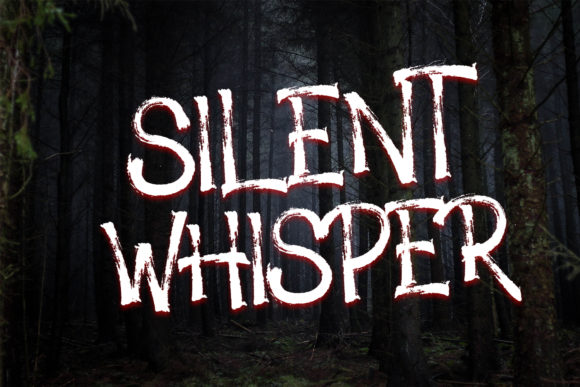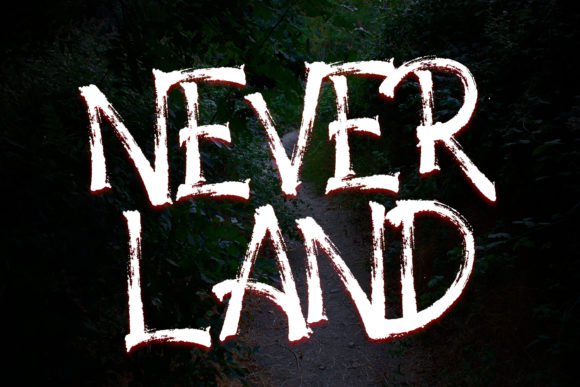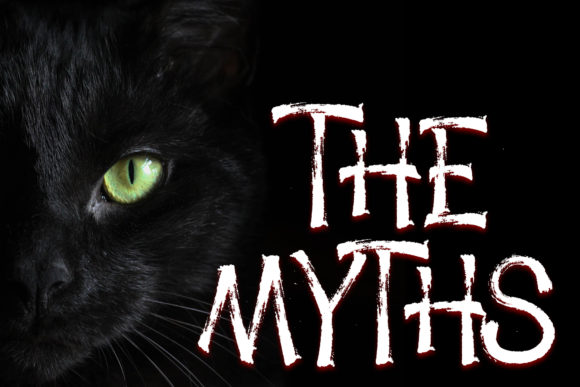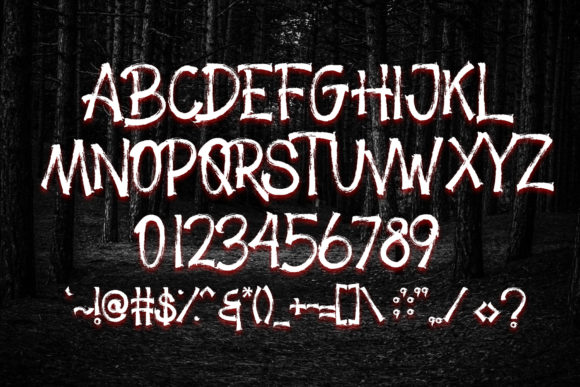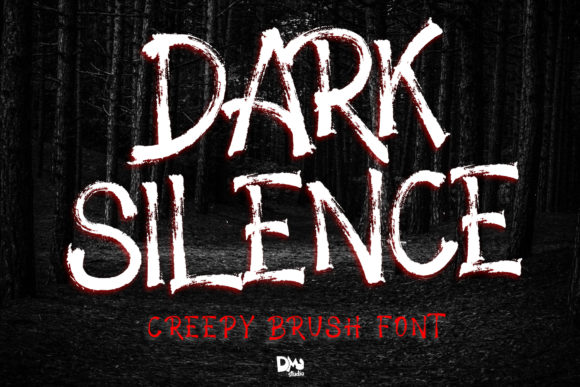
Unleash the Eerie Elegance of Dark Silence Font
In the realm of typography, few fonts manage to evoke the same level of intrigue and eeriness as the Dark Silence Font. This creepy brush display font, with its rough texture, is designed to make a statement. Whether you’re working on a project that requires a bold, eye-catching headline or seeking to add an element of mystery to your design, Dark Silence is an exceptional choice. In this article, we’ll delve into the unique characteristics of the Dark Silence Font, explore its versatility, and discuss how it can elevate your designs.
The Unique Characteristics of Dark Silence Font
Dark Silence Font stands out due to its distinctive rough texture and brush-like appearance. This font is not just a simple typeface but an artistic expression that brings a raw, unpolished feel to any design. The irregularities in its strokes and the boldness of its letters make it perfect for grabbing attention. The texture gives it a handmade look, as if it was crafted with a brush or a marker, adding a personal touch to your projects.
One of the key strengths of the Dark Silence Font is its versatility. This font can seamlessly integrate into various design contexts, making it a valuable asset for designers. Here are a few ways you can use Dark Silence Font:
- Headlines and Titles: Use Dark Silence as a headline or title font to instantly draw attention. Its bold and unique texture makes it perfect for grabbing the viewer’s eye.
- Standalone Graphics: Dark Silence Font shines when used as a standalone graphic element. You can create stunning posters, flyers, or social media graphics that stand out in a crowded feed.
- Busy Backgrounds: One of the font’s remarkable features is its readability even on busy or complex backgrounds. The rough texture and boldness of the letters ensure that your message is clear and impactful.
- Branding and Logos: For brands looking to make a bold statement, Dark Silence can be a great choice for logos or brand names, especially for those in the creative, entertainment, or horror genres.
Tips for Using Dark Silence Font Effectively
While Dark Silence Font is incredibly versatile, there are a few tips to keep in mind to use it effectively:
- Contrast is Key: Ensure that there’s sufficient contrast between the font color and the background. This will help maintain readability and make your text pop.
- Balance with Simplicity: While Dark Silence is bold and attention-grabbing, balancing it with simpler elements can create a harmonious design. Pair it with clean fonts for body text or use it sparingly to highlight key information.
- Consider the Mood: The font’s eerie and rough texture evokes a specific mood. Ensure that it aligns with the overall theme or message of your project.
Who Can Benefit from Dark Silence Font?
Dark Silence Font is a valuable resource for a wide range of designers and crafters, including:
- Graphic Designers: Looking for unique fonts to make their projects stand out.
- Content Creators: Needing attention-grabbing fonts for social media posts or blogs.
- Marketing Agencies: Aiming to create bold and impactful campaigns.
- Horror or Film Enthusiasts: Seeking fonts that can add a thematic touch to their projects.
- Crafters and Makers: Incorporating custom typography into their handmade goods or DIY projects.
Dark Silence Font is more than just a typeface; it’s a design statement. Its creepy brush display and rough texture make it an excellent choice for projects that demand attention and convey a sense of mystery or intrigue. By incorporating Dark Silence into your designs, you can add a layer of depth and emotion, making your work more engaging and memorable. Whether you’re a seasoned designer or a crafty DIY enthusiast, Dark Silence Font is a versatile tool that can help you achieve your creative goals.